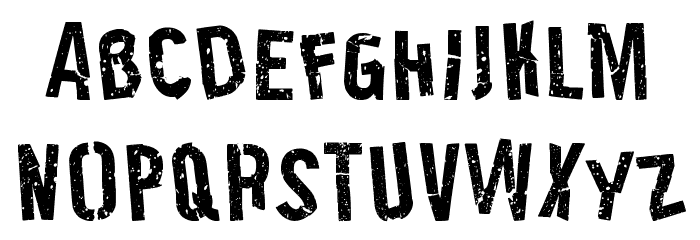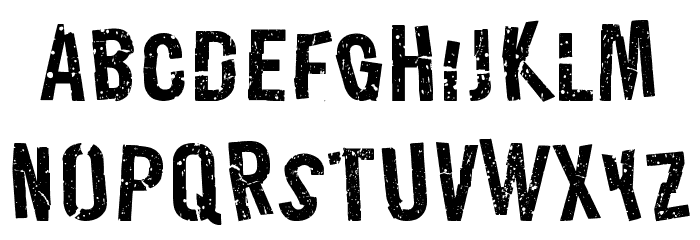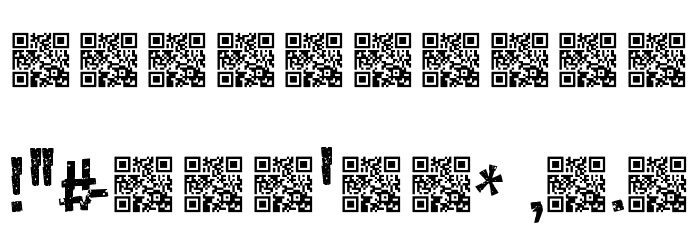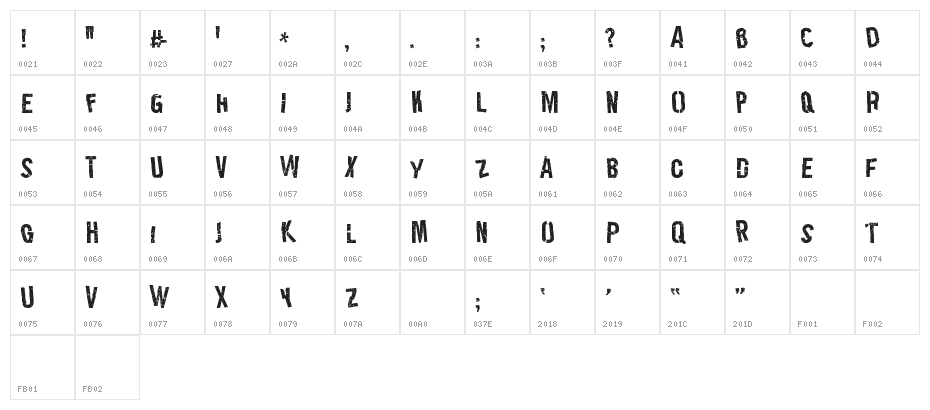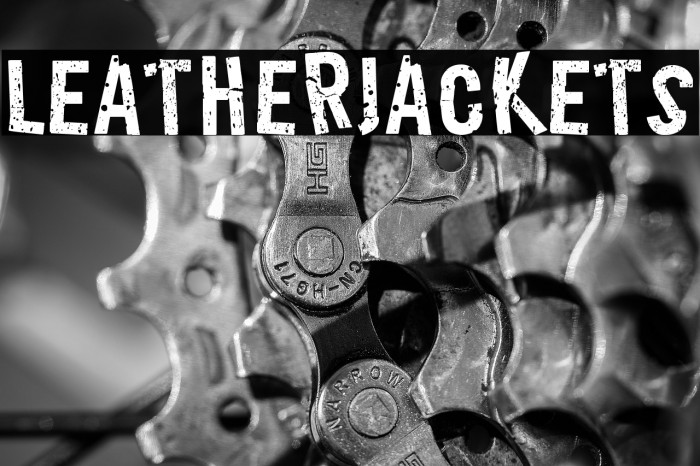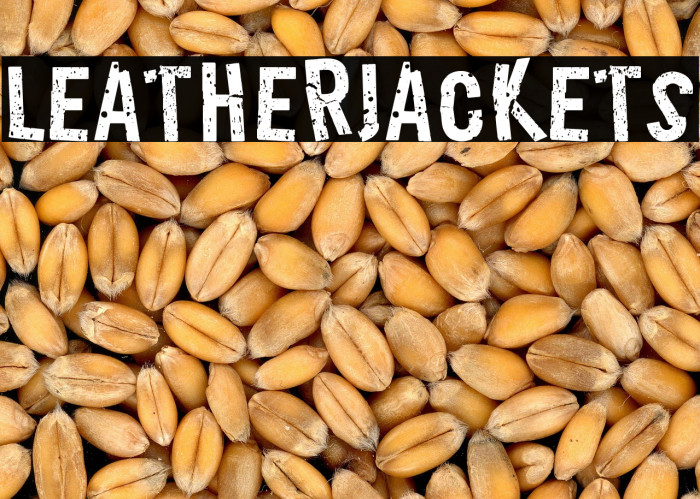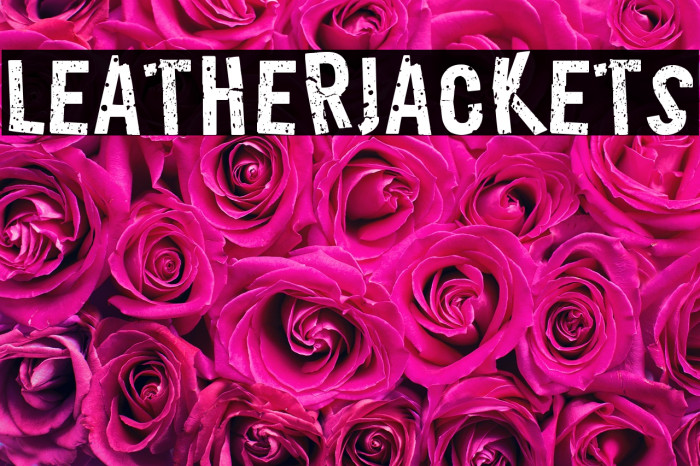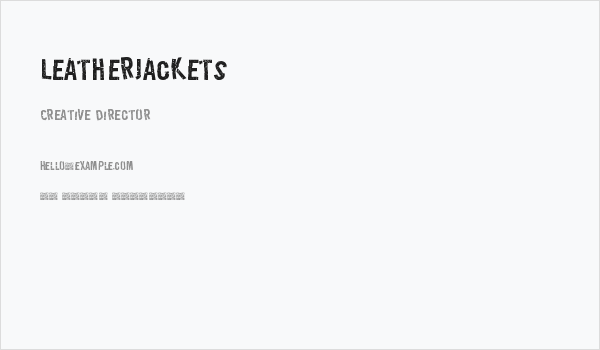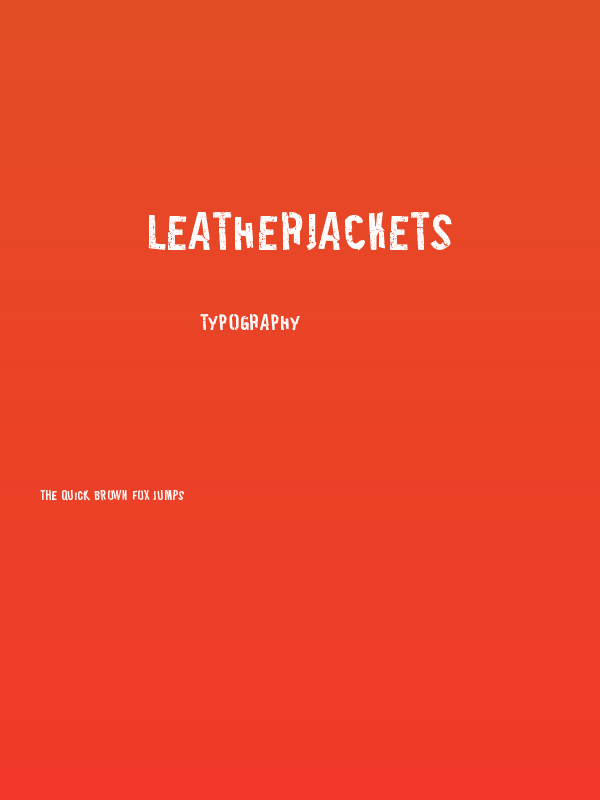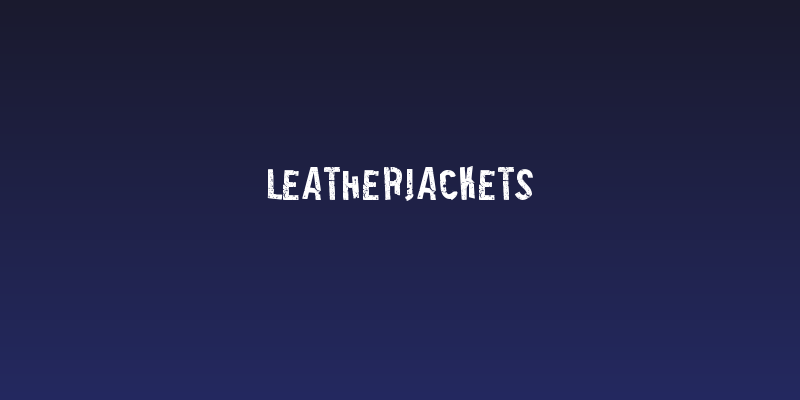
LeatherJackets Font
This font features a rugged, distressed appearance, reminiscent of worn leather or vintage signage. The characters are bold and slightly irregular, giving them a hand-crafted feel. The texture within each letter adds a sense of depth and character, making it ideal for designs that require a gritty, authentic look. The uppercase letters are prominent, with a slight slant and uneven edges that enhance the overall rugged aesthetic. This font is perfect for projects that aim to convey a sense of toughness, nostalgia, or rebellion.
A bold, distressed font with a rugged, vintage look.
- Proposed Projects: Ideal for posters, album covers, branding for outdoor or adventure products, and any design needing a gritty, authentic feel.
- Overall Style: Vintage